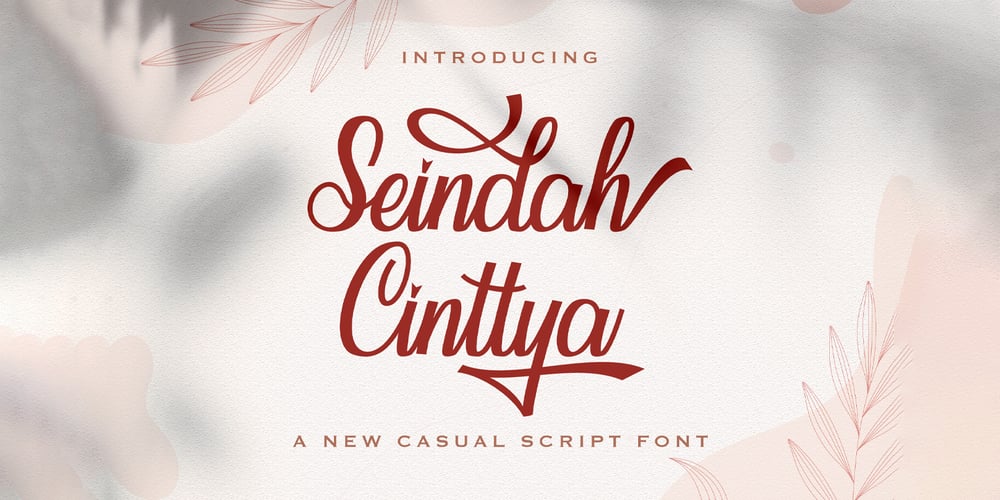
Seindah Cinttya Font Family was designed by Virgiawan Listanto and published by Stringlabs Creative Studio. Seindah Cinttya contains 1 styles and family package options. Seindah Cinttya results out of a stunning pairing of a brush pen that makes it look incredibly endearing and authentic. Use this gorgeous and unique script font to bring any DIY project to life!